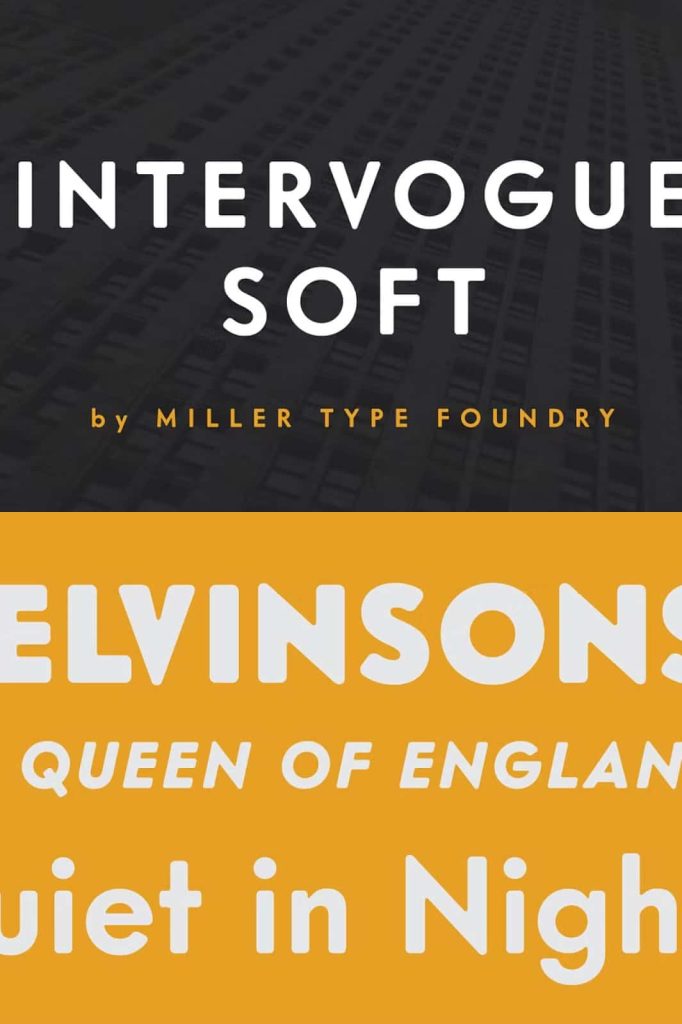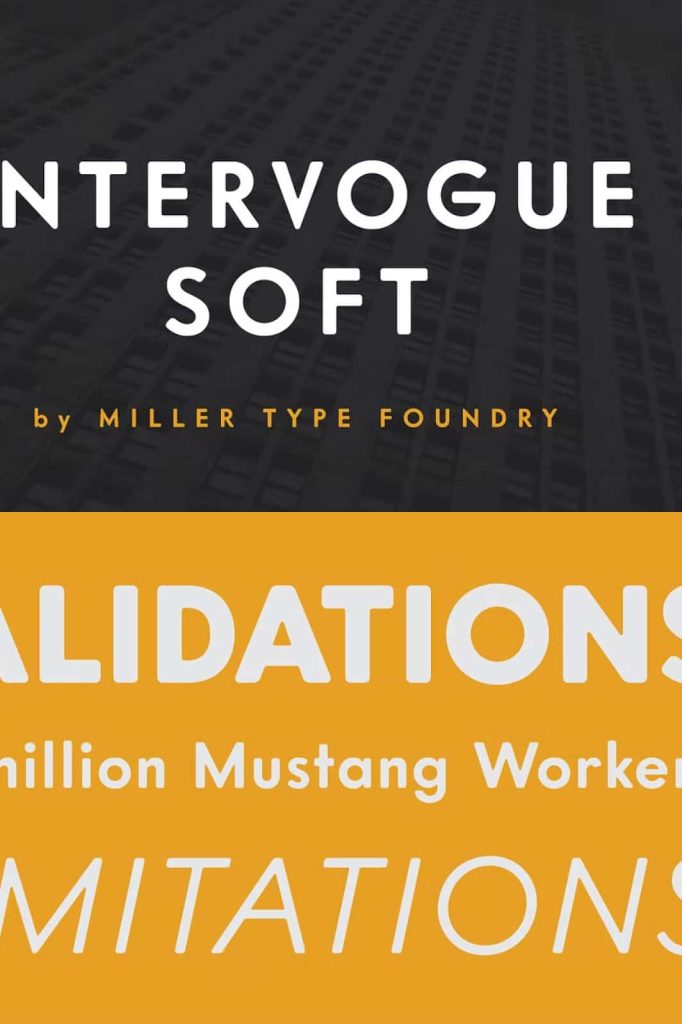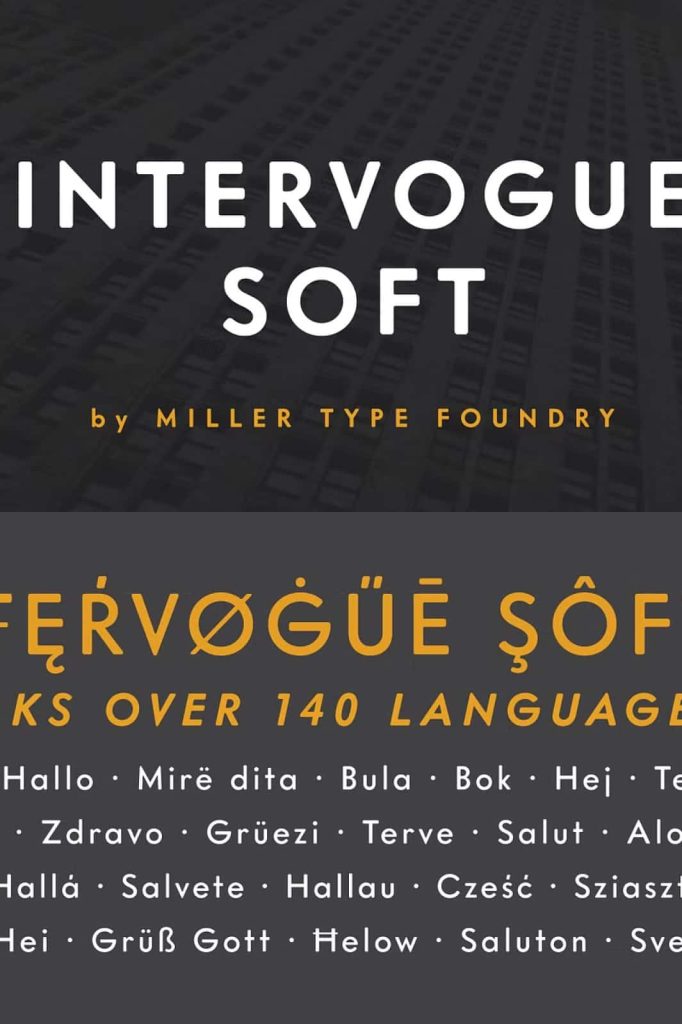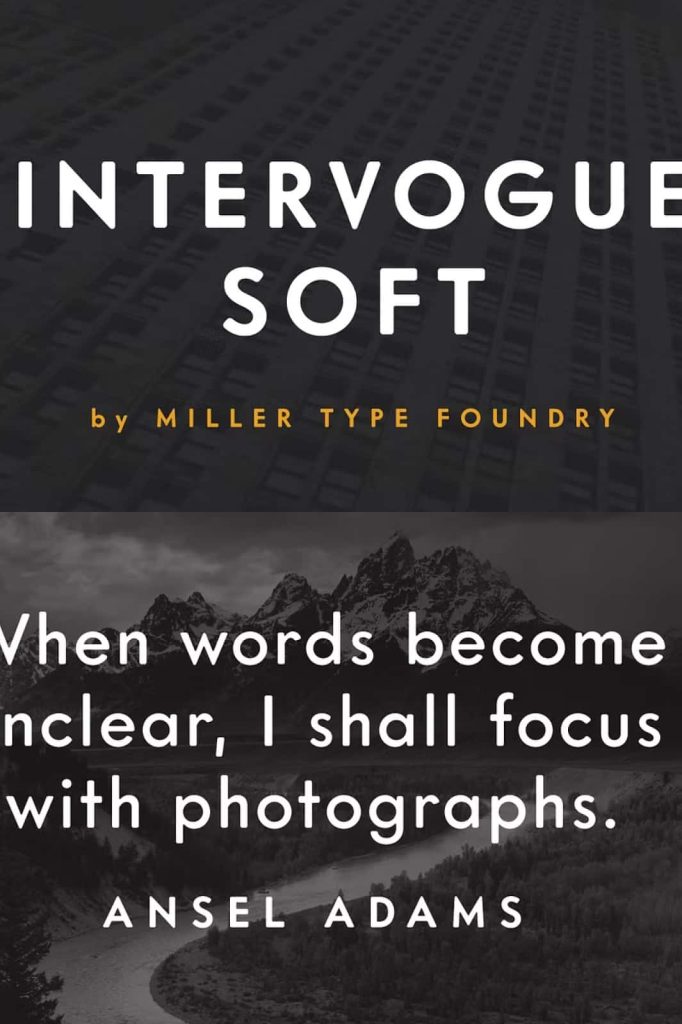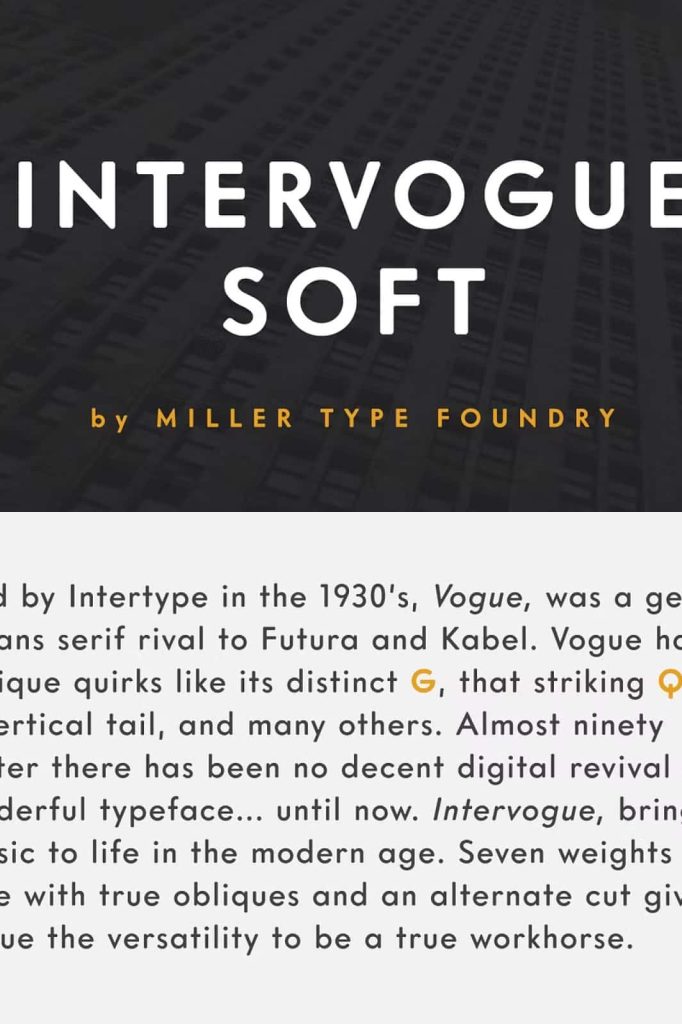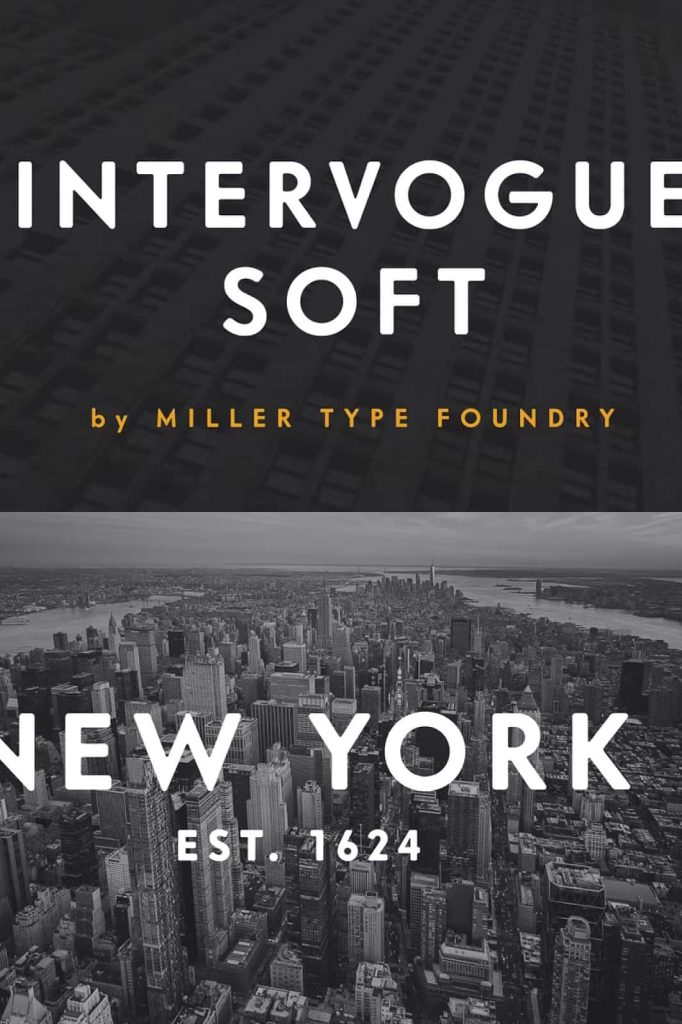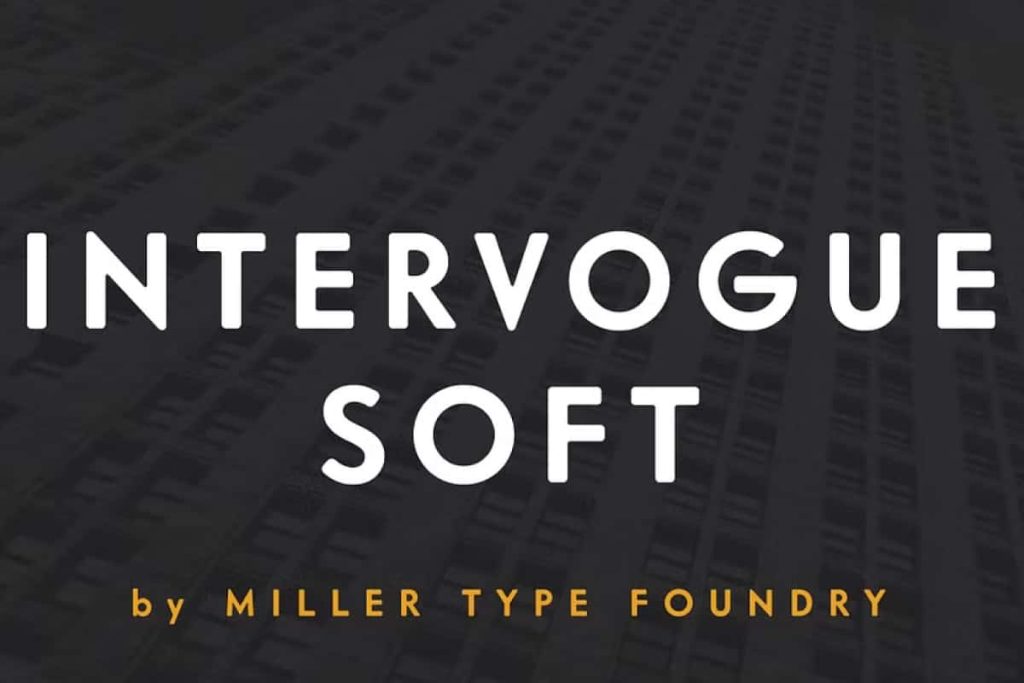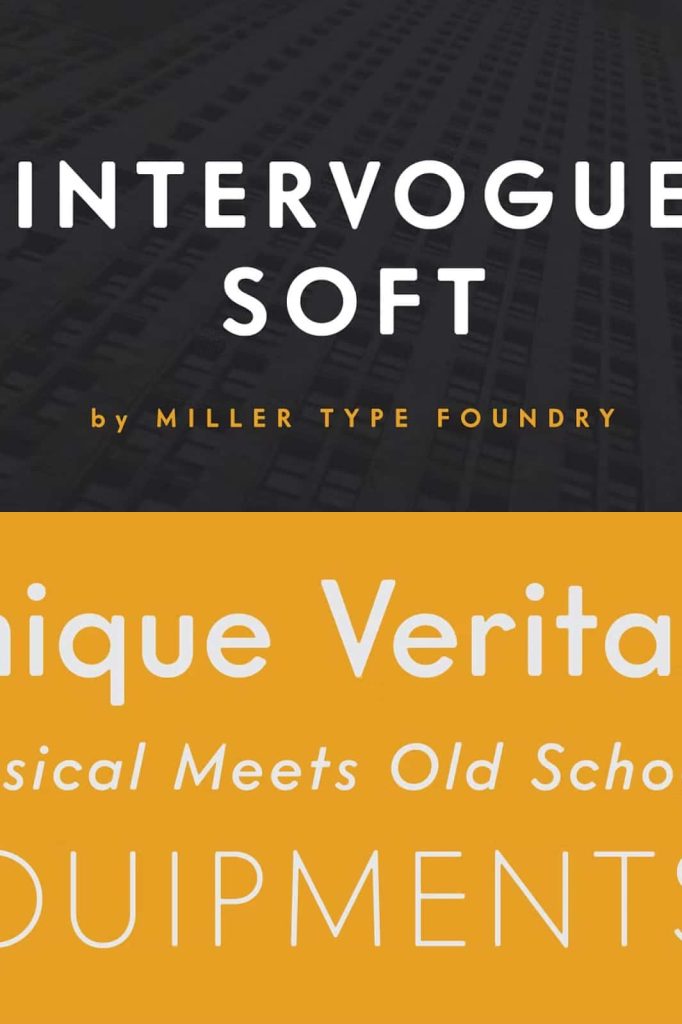
Released by Intertype in the 1930’s, Vogue, was a geometric sans serif rival to Futura and Kabel. Vogue had many unique quirks like its distinct G, that striking Q with a vertical tail, and many others. Almost ninety years later there has been no decent digital revival of this wonderful typeface